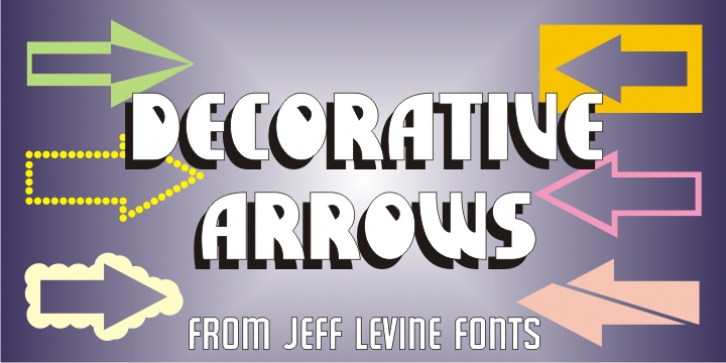
Decorative Arrows JNL downloadDesigner: Jeff Levine
Decorative Arrows JNL is a collection of twenty-six decorative arrows provided in right and left facing directions.